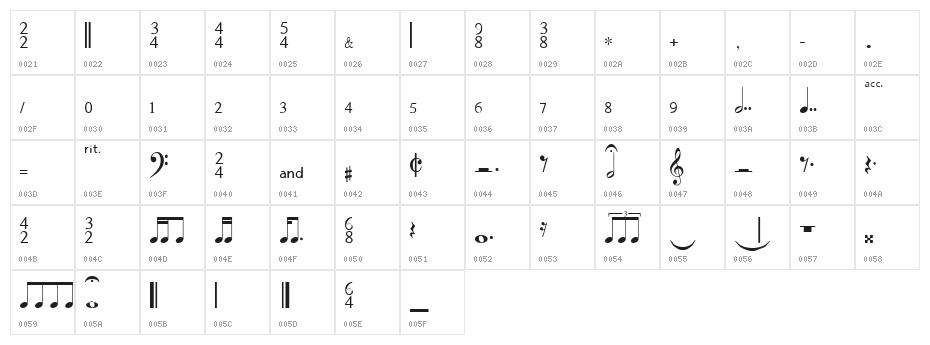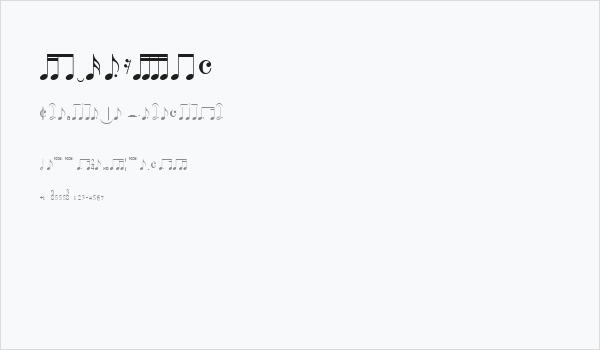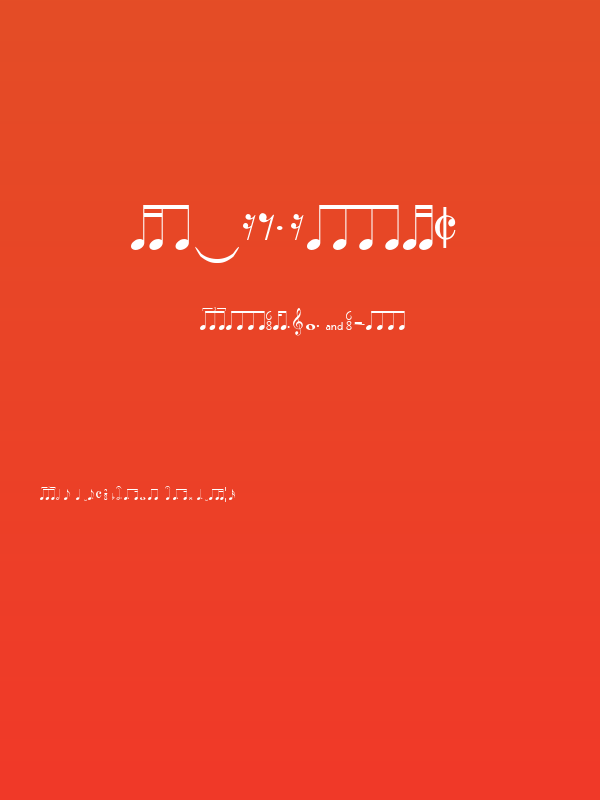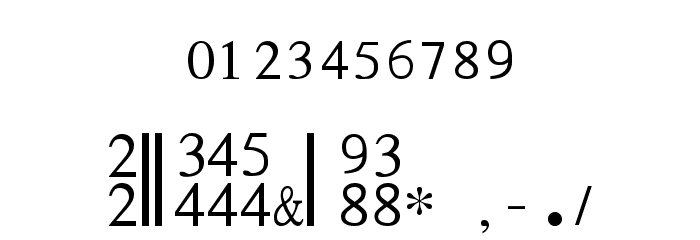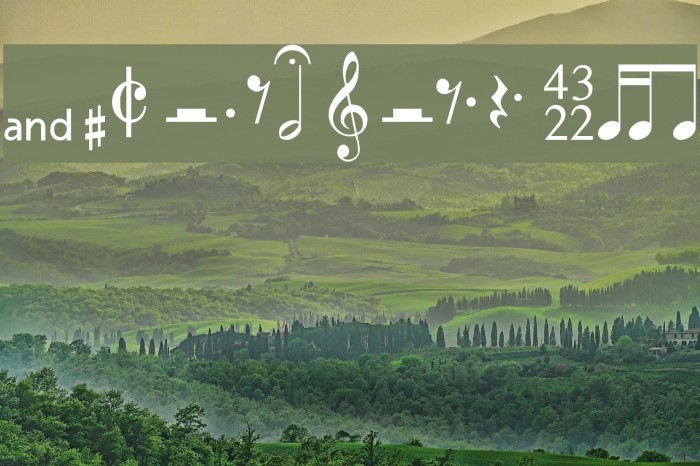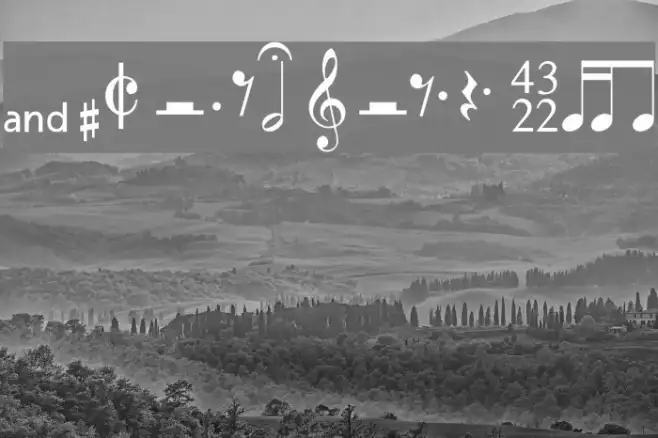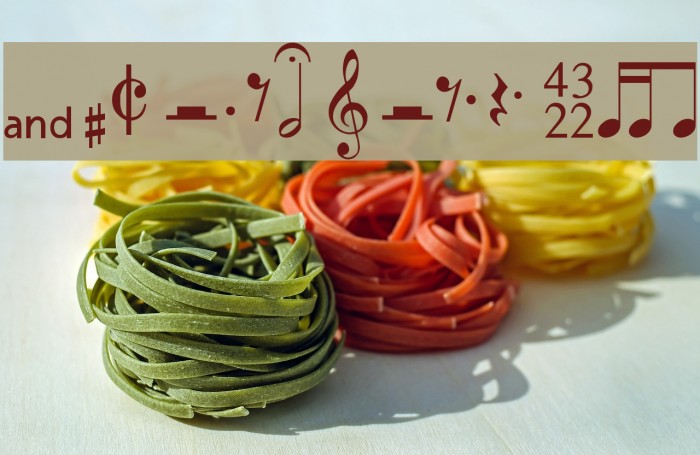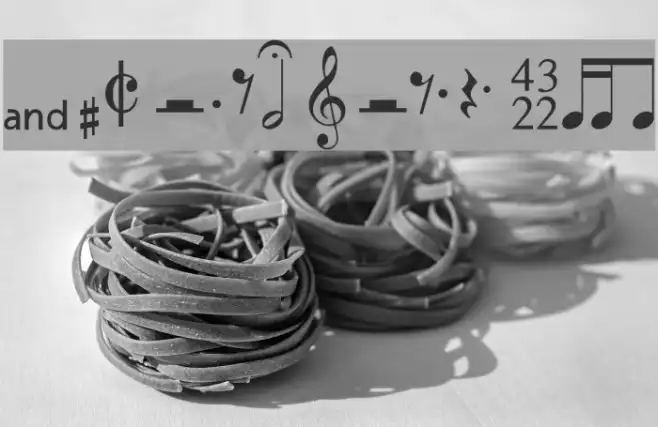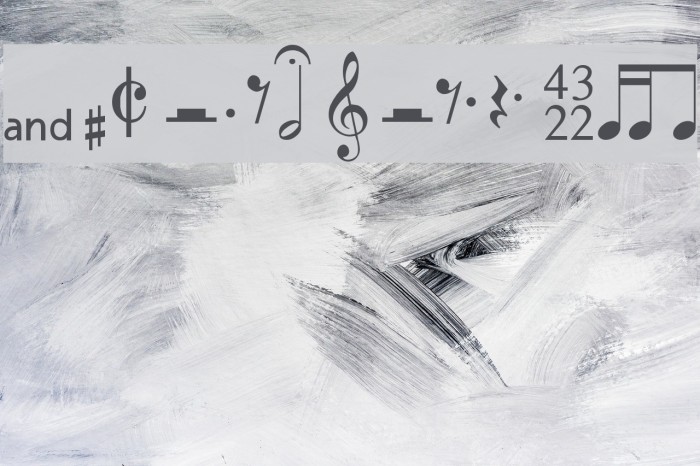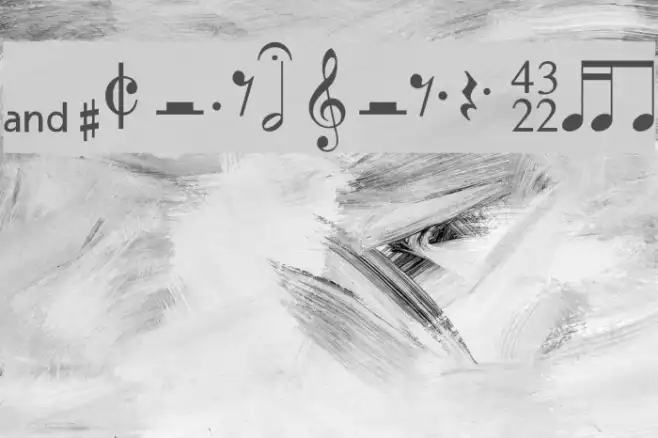
MusiSync Font
MusiSync Description
This font is a unique and creative typeface that integrates musical symbols and notes into its design. It features a variety of musical notations such as treble clefs, notes, and rests, alongside traditional alphanumeric characters. The design is clean and precise, with a modern aesthetic that blends musical elements seamlessly with text. The characters are well-spaced, ensuring readability while maintaining a decorative appeal. This font is perfect for projects that require a musical theme or for adding a creative touch to designs related to music education, performances, or events.
| Use Case | Logos, Headlines, Creative designs |
| Proposed Projects | Ideal for music-related projects, educational materials, concert posters, and creative designs requiring a musical flair. |